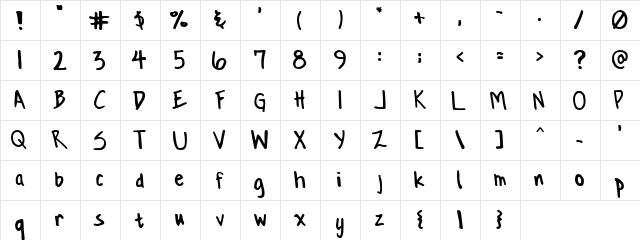
Conformity Normal
Design Context for Conformity Typeface
Conformity is a composed and adaptable typeface that performs quietly and consistently across a wide range of design contexts.